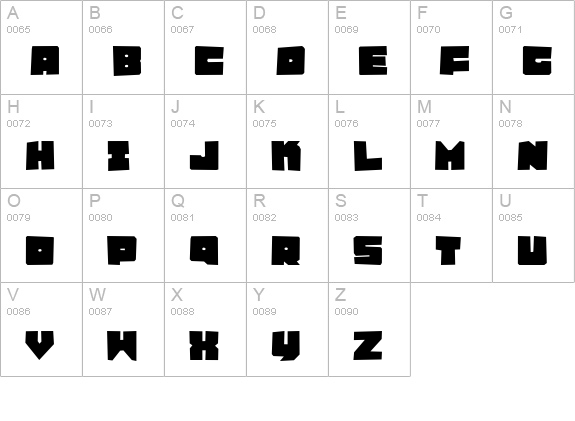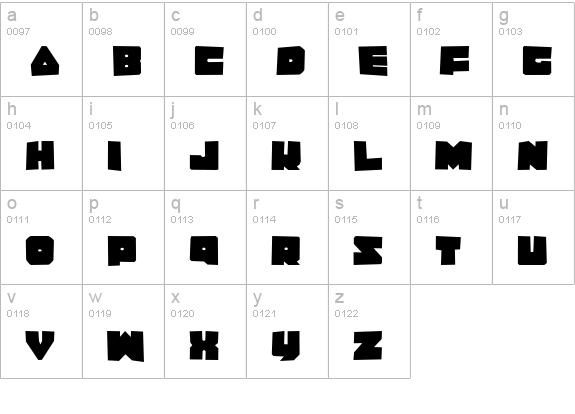
Lobo Tommy Rough Font Details
Lobo Tommy Rough font is a charming and versatile typeface that exudes a rugged and handcrafted aesthetic. Its playful yet bold design makes it perfect for a wide range of creative projects, from branding to packaging and everything in between. The irregular strokes and rough edges give this font a unique and organic feel that is sure to make your designs stand out. Best of all, Lobo Tommy Rough font is available for free download at FontsMarket.com. Whether you're a seasoned designer looking to add a fresh new font to your collection or a beginner searching for the perfect typeface for your next project, Lobo Tommy Rough font is a fantastic choice. Don't miss out on this incredible opportunity to enhance your designs with this one-of-a-kind font that is both stylish and free to use.